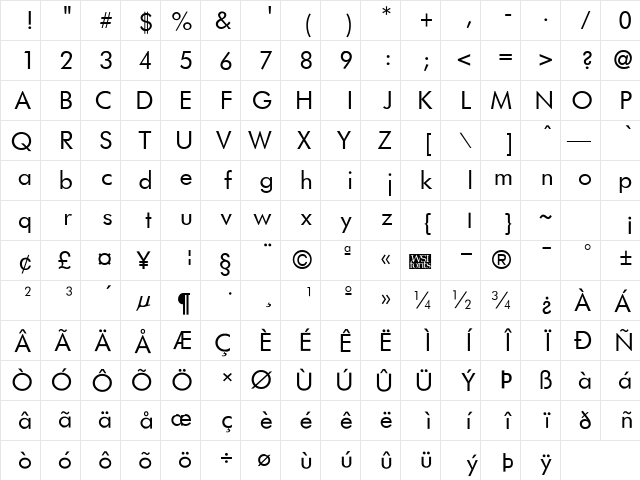
FuturistFixedWidth Regular
Design Context for FuturistFixedWidth Typeface
FuturistFixedWidth channels digital-age aesthetics through its sharp, structured letterforms — ideal for brands that want to signal innovation.